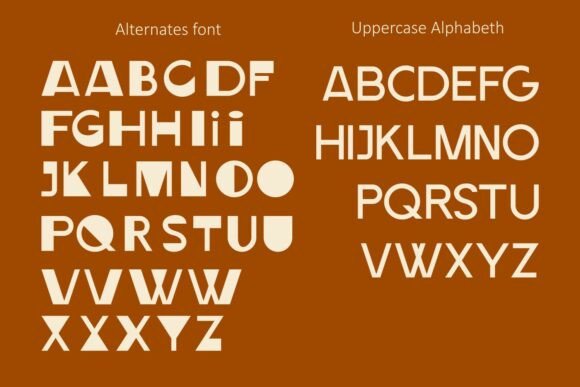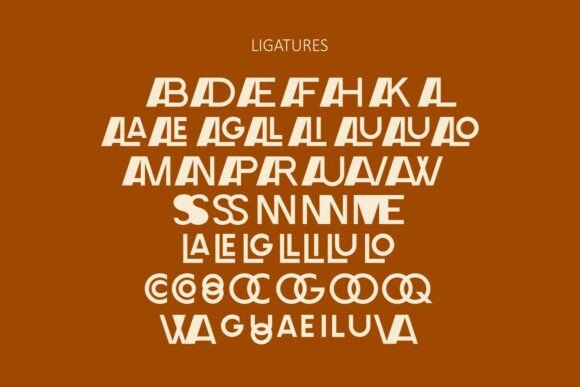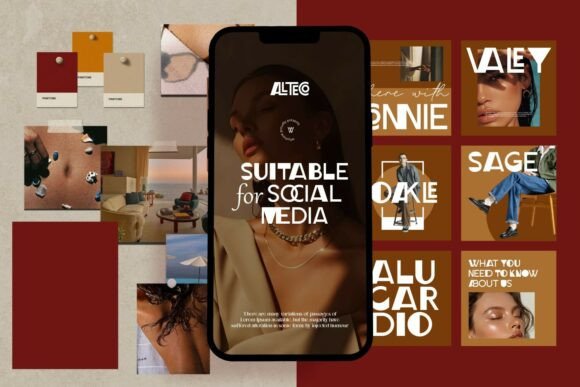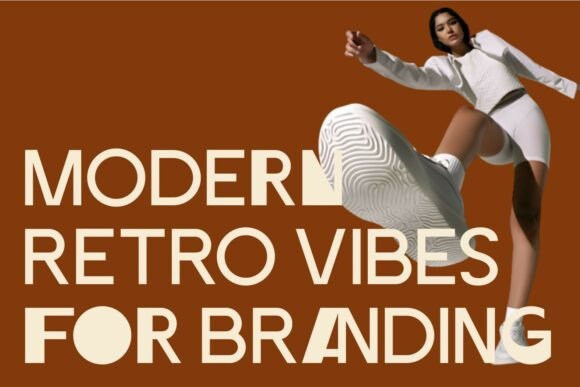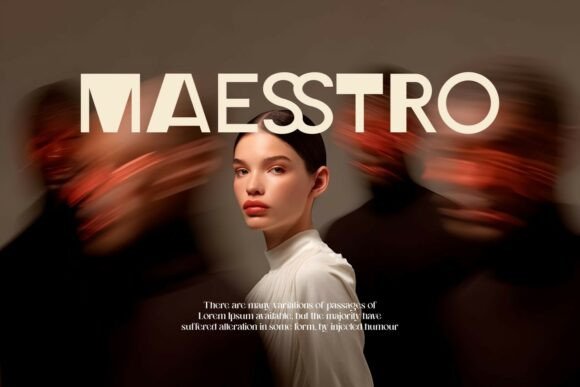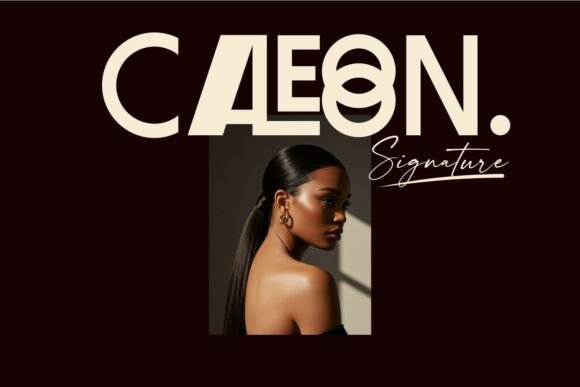
The Perfect Blend of Retro and Modern: Unleashing the Power of the Allteco Font
Remember the thrill of creating your first logo as a designer? The rush of excitement as your ideas come together in a single, bold stroke of creativity? For many of us, that moment is what drives us to keep pushing the boundaries of design. And now, with the Allteco Font, that same excitement can be yours with every project, every brand, and every logo you create.
The Allteco Font is a modern retro display font that lets you craft professional-looking logos and headlines with just a single line of typing. Its strong geometric shapes and distinctive letterforms make it perfect for logos, brand identities, fashion campaigns, and more. With Allteco Font, you can say goodbye to complex customization and hello to instant branding results that are both stylish and character-driven.
- Unique Characteristics: The font features a unique blend of modern and traditional elements, with intricate details and subtle flair, making it perfect for branding and design projects.
- Font Style: Allteco Font comes in 3 different styles: Regular, Bold, and Italic, providing versatility for designers to experiment with different looks and feels.
Allteco Font Review
I recently had the chance to work with the Allteco Font, and I must say it’s an interesting addition to any designer’s toolkit. ✨ Here are a few things that work well:
- Unique aesthetic: Allteco Font has a distinct, modern feel that can add a touch of elegance to any project.
- Good for branding: The font’s versatility makes it suitable for a wide range of branding applications, from logos to product packaging.
- Supports multiple languages: This is a big plus for designers working on global projects, as it ensures the font will display correctly across different languages.
- Lack of expressiveness: While Allteco Font is great for clean, minimalist designs, it may not be the best choice for projects that require more emotional depth or nuance.
- May not be suitable for large blocks of text: The font’s unique style can make it difficult to read in extended blocks of text, which may limit its use in certain applications.
Overall, I think Allteco Font is a solid addition to any designer’s library. While it may not be the perfect choice for every project, its unique aesthetic and versatility make it a great option for designers looking to add some flair to their work.
Tips for Getting the Most Out of Allteco Font
Use Allteco Font to add a touch of elegance and sophistication to your designs. Experiment with different font sizes and colors to create visual interest. You can also use Allteco Font in combination with other fonts to create a unique and eye-catching look.
Allteco Font is ideal for use in corporate branding, marketing materials, and editorial designs. It’s also a great choice for creating beautiful typography-based art pieces and graphics.
Alternatives to Allteco Font
Montserrat is a modern sans-serif font designed for digital use. It’s perfect for creating clean and minimalist designs, ideal for corporate websites, tech startups, and mobile applications. Montserrat is more geometric and condensed compared to Allteco Font, making it a great choice for small screens and digital interfaces.
Inter is a versatile sans-serif font designed for digital use. It’s highly legible and suitable for a wide range of applications, from body text to headings. Inter is more rounded and friendly compared to Allteco Font, making it a great choice for creative and editorial projects. It’s also highly customizable, allowing designers to adjust its weight and width to suit their needs.